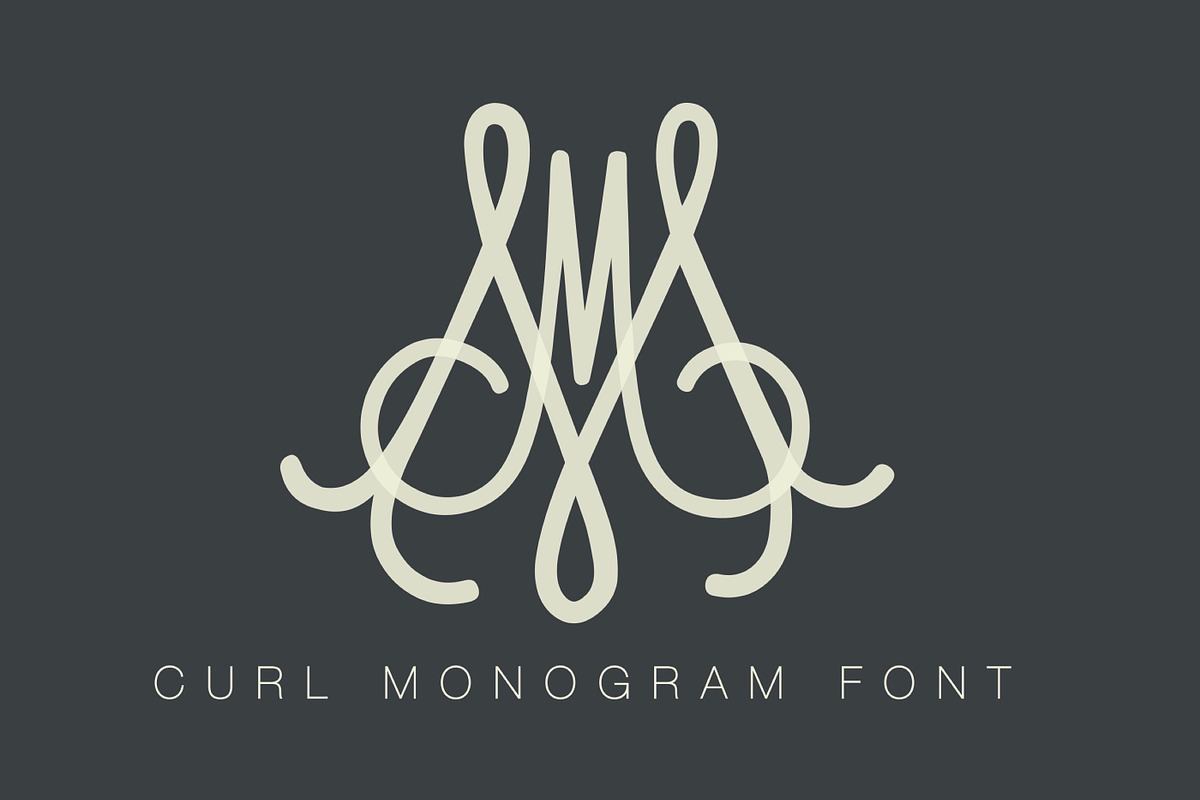
Baroque Curl Monogram Font Free Download is a stunning, ornate typeface that combines the elegance of traditional baroque design with the unique flair of monogram lettering. With intricate curls and delicate flourishes, this font is perfect for creating luxurious logos, wedding invitations, monograms, and any design that requires a sophisticated, vintage aesthetic.
The font’s detailed letterforms make it ideal for high-end, personalized designs, adding a regal touch to your typography. Whether you're designing a classic monogram, upscale stationery, or elegant branding, Baroque Curl brings a sense of opulence and timeless beauty to your work.